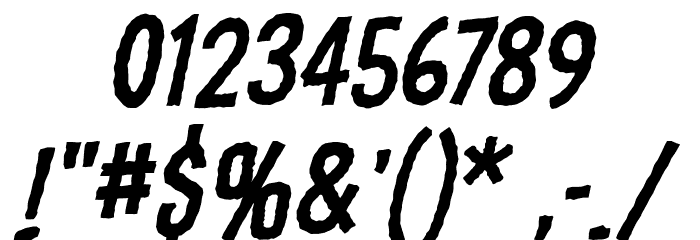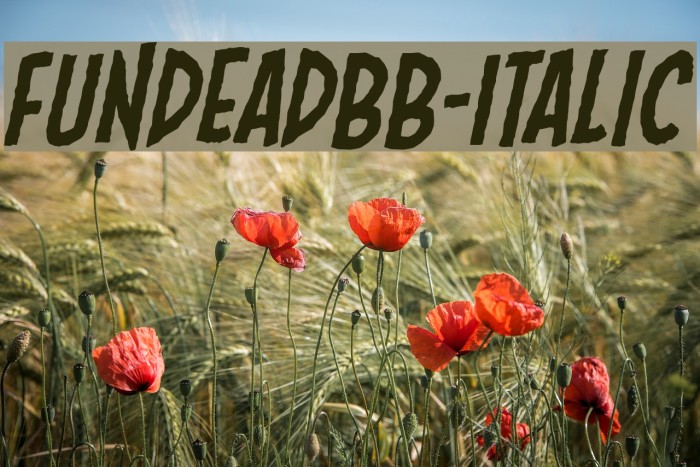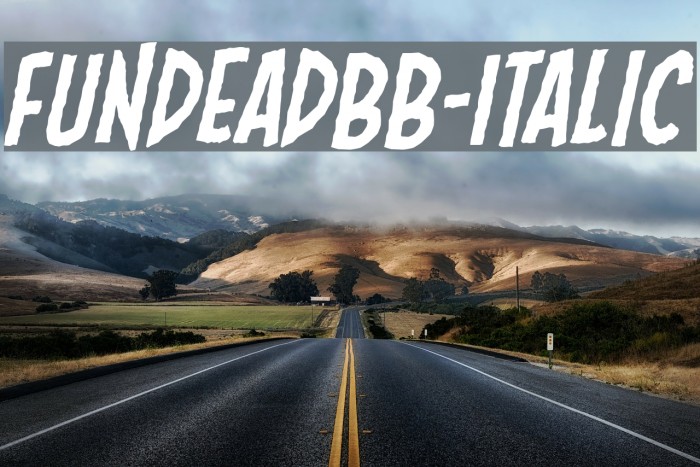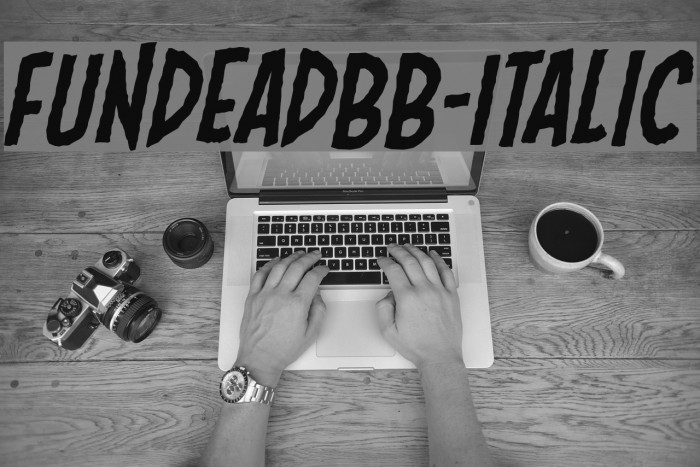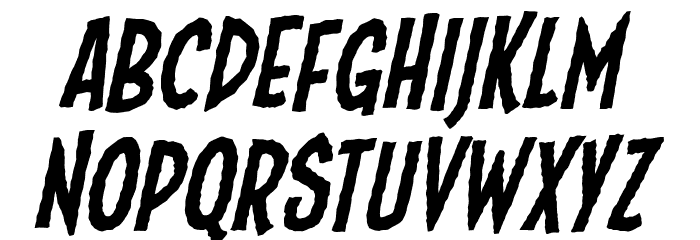
FundeadBB-Italic Font
This font features a bold and dynamic style with a hand-drawn appearance, characterized by its slanted, italicized form. The strokes are thick and uneven, giving it a rough, edgy look that suggests movement and energy. The uppercase and lowercase letters maintain a consistent slant, enhancing the font's cohesive and lively feel. Numbers and special characters follow the same stylistic approach, ensuring uniformity across all elements. The overall design is playful yet assertive, making it suitable for projects that require a strong visual impact.
A bold, italicized font with a hand-drawn, energetic style.
• Proposed Projects: Ideal for posters, comic book titles, Halloween-themed designs, and any project needing a bold, playful touch.
• Category: Decorative/Display
• Bold: Yes
• Italic: Yes
• Weight: Bold
• Width: Normal
• Character Spacing: Normal
• Contrast: Medium
• Overall Style: Decorative
• Use Case: Headlines, Logos, Posters